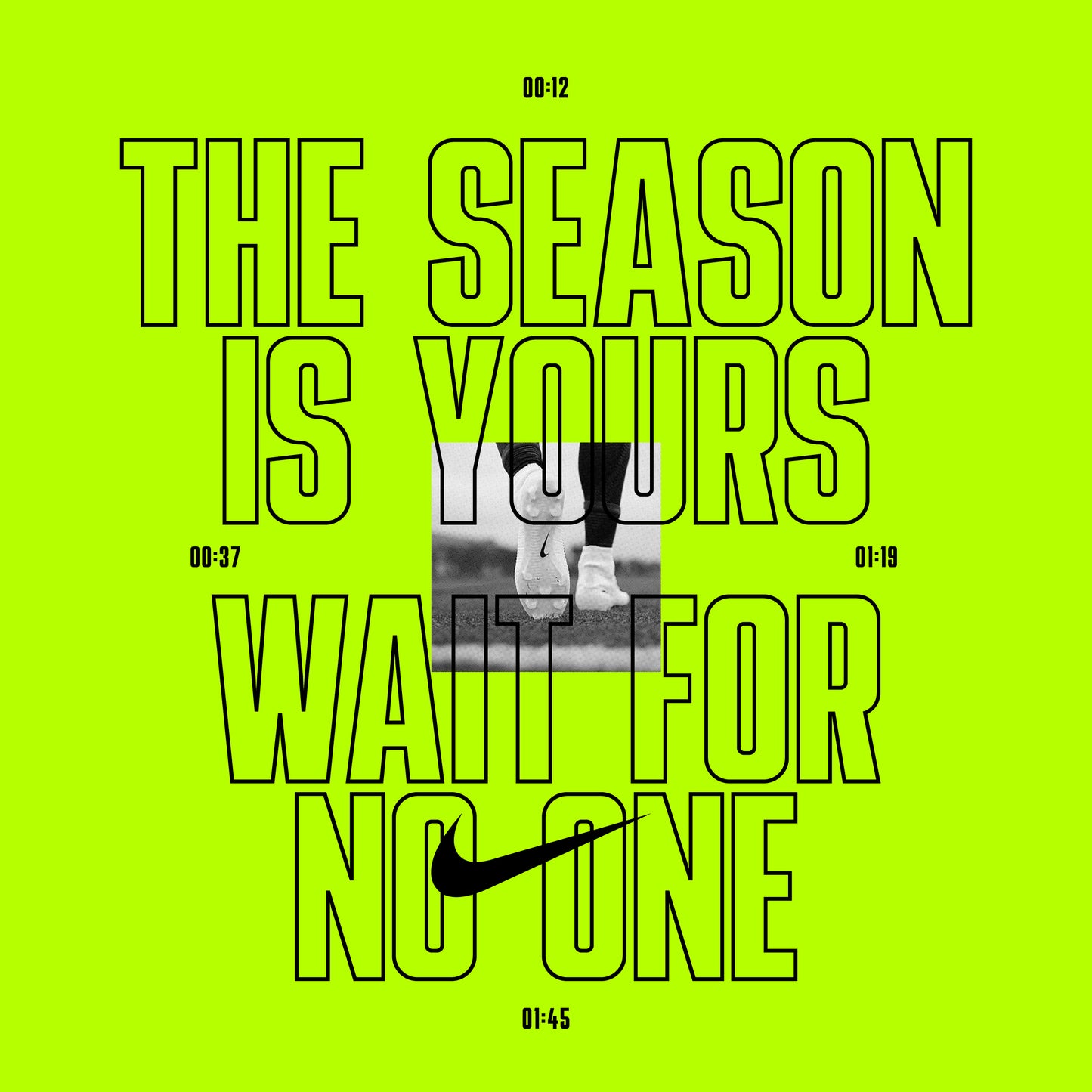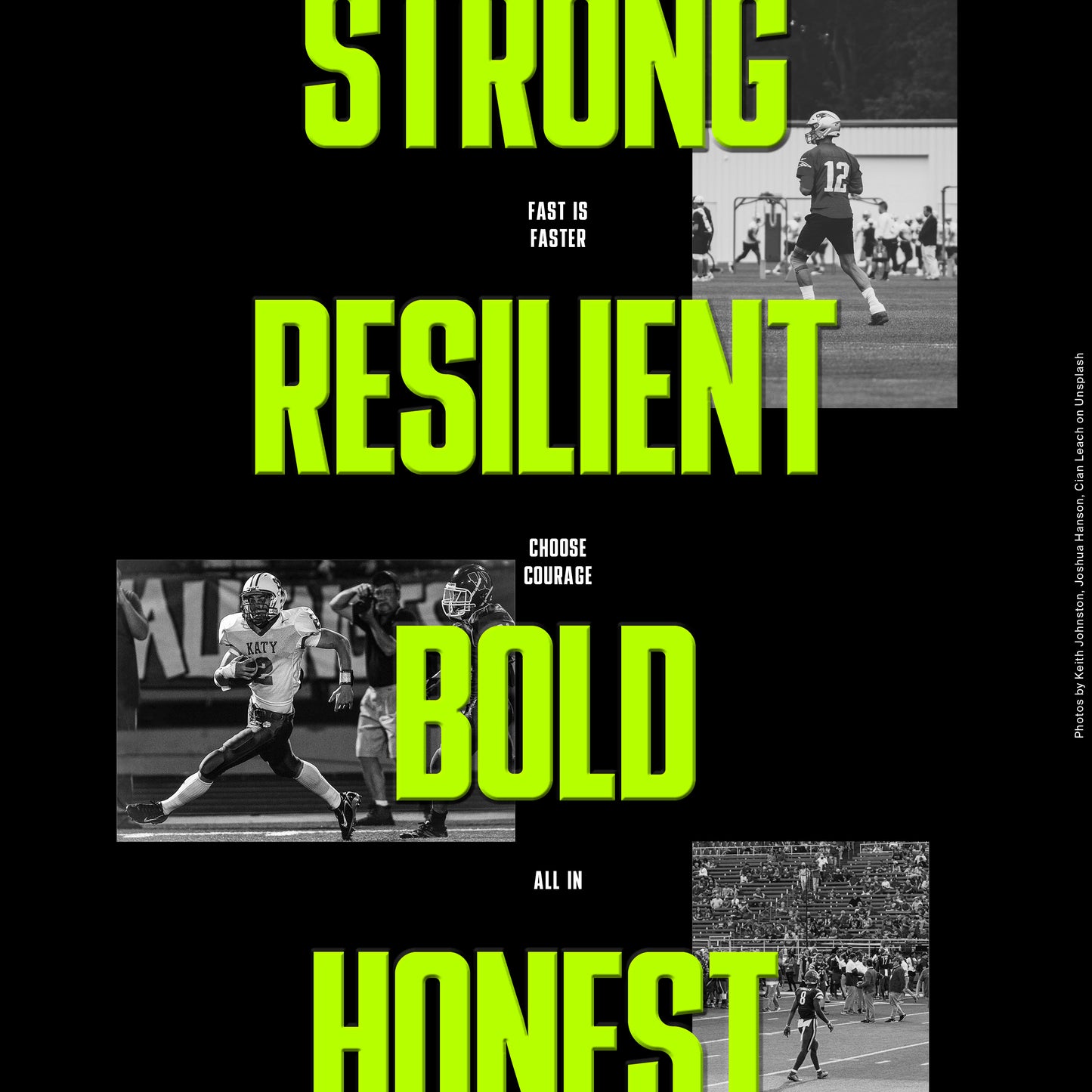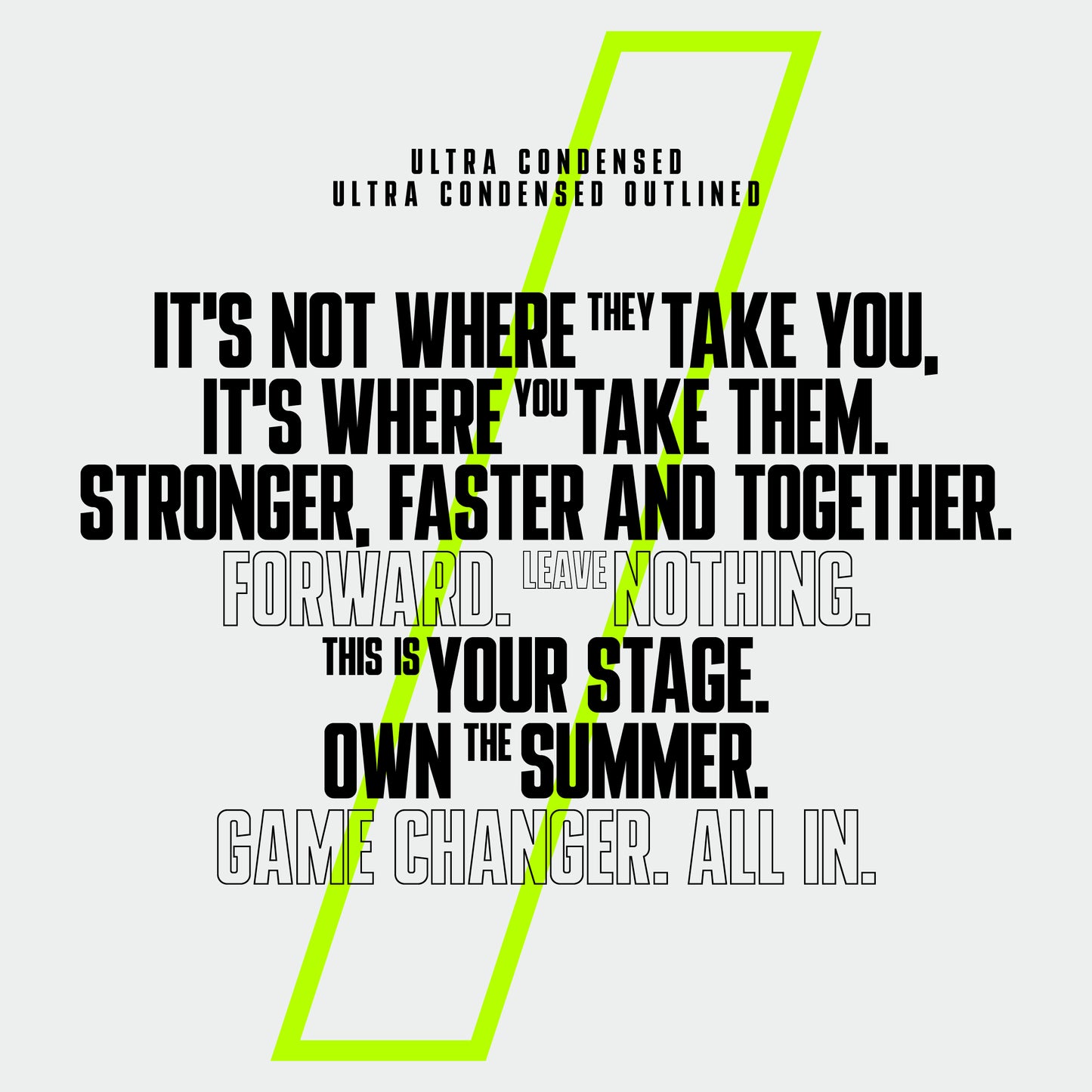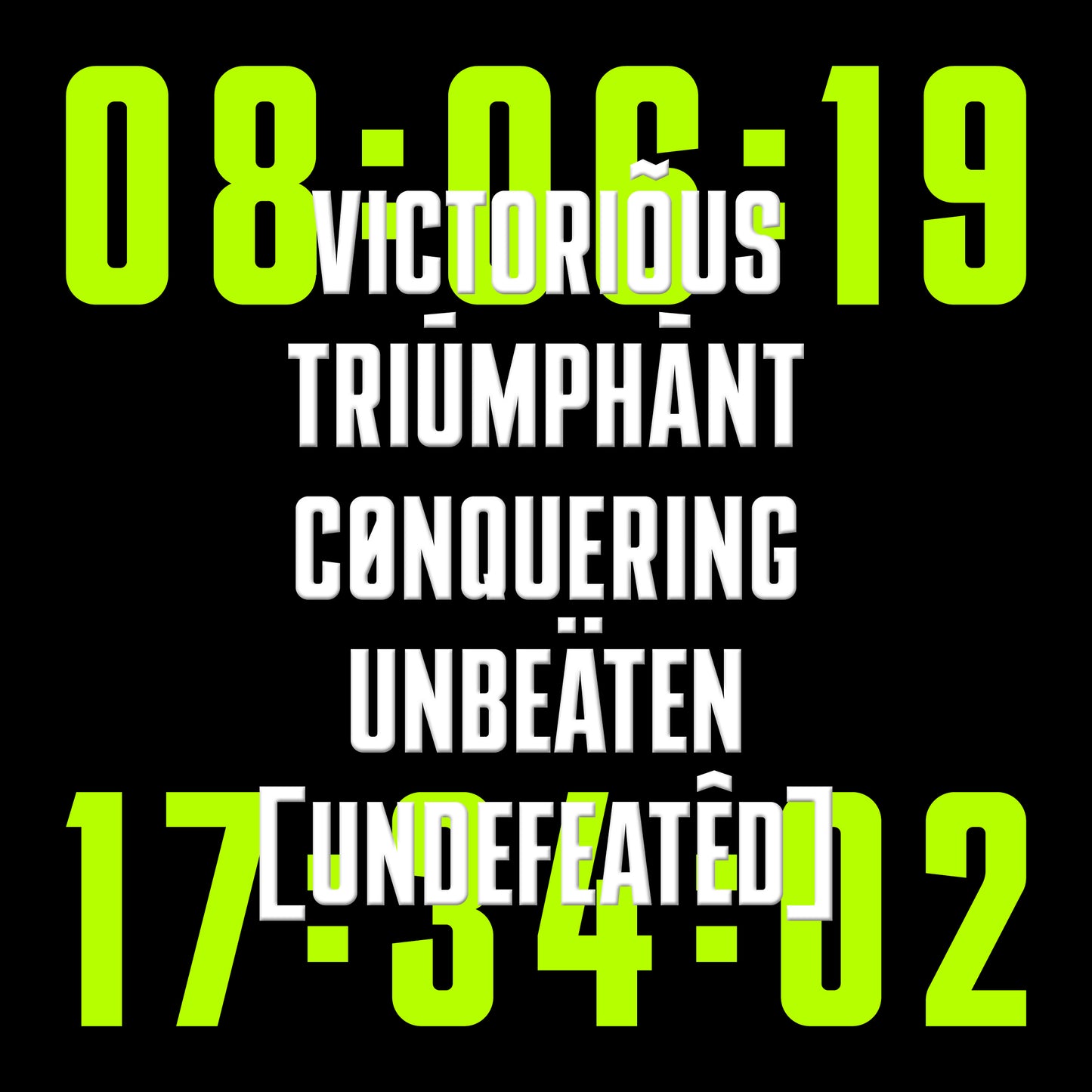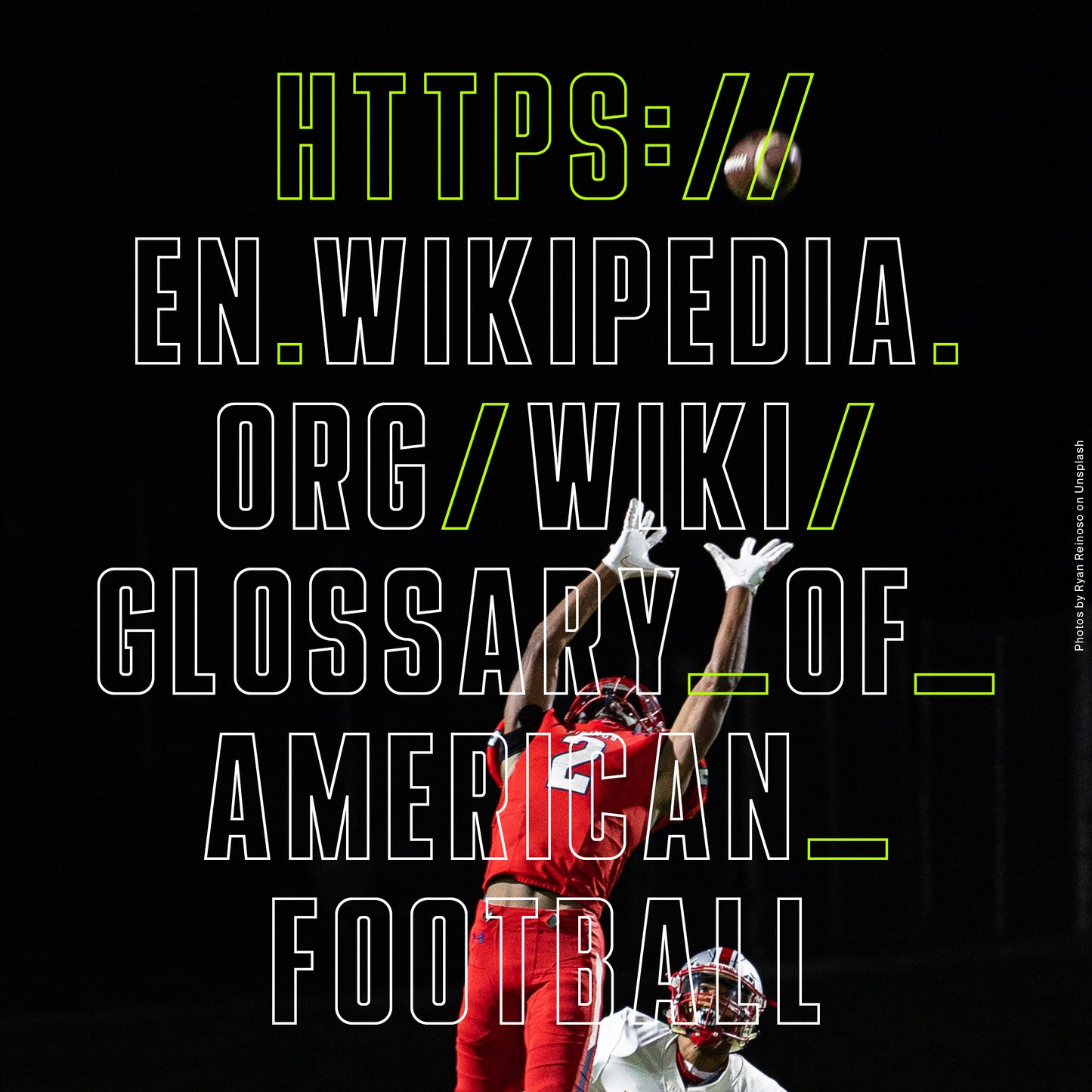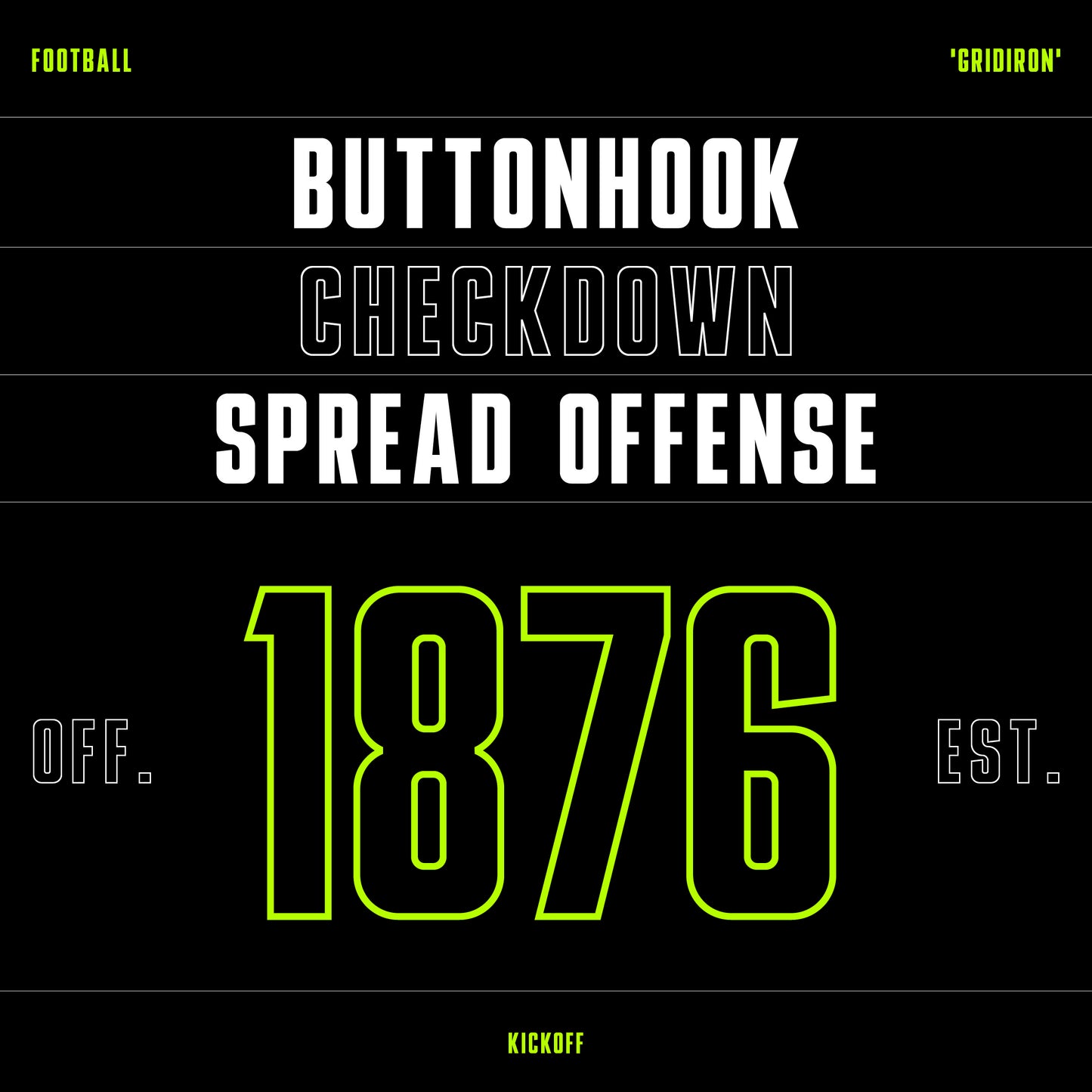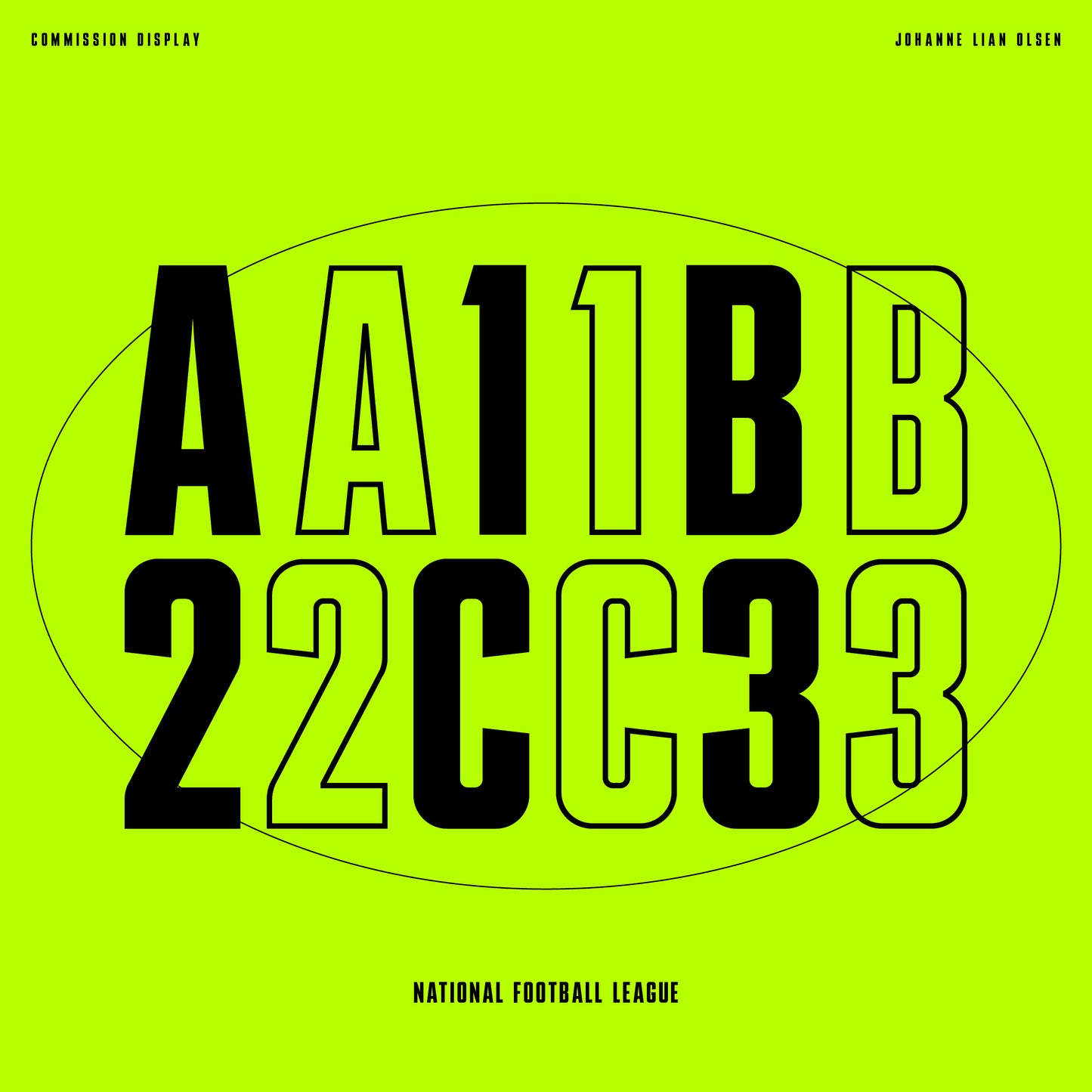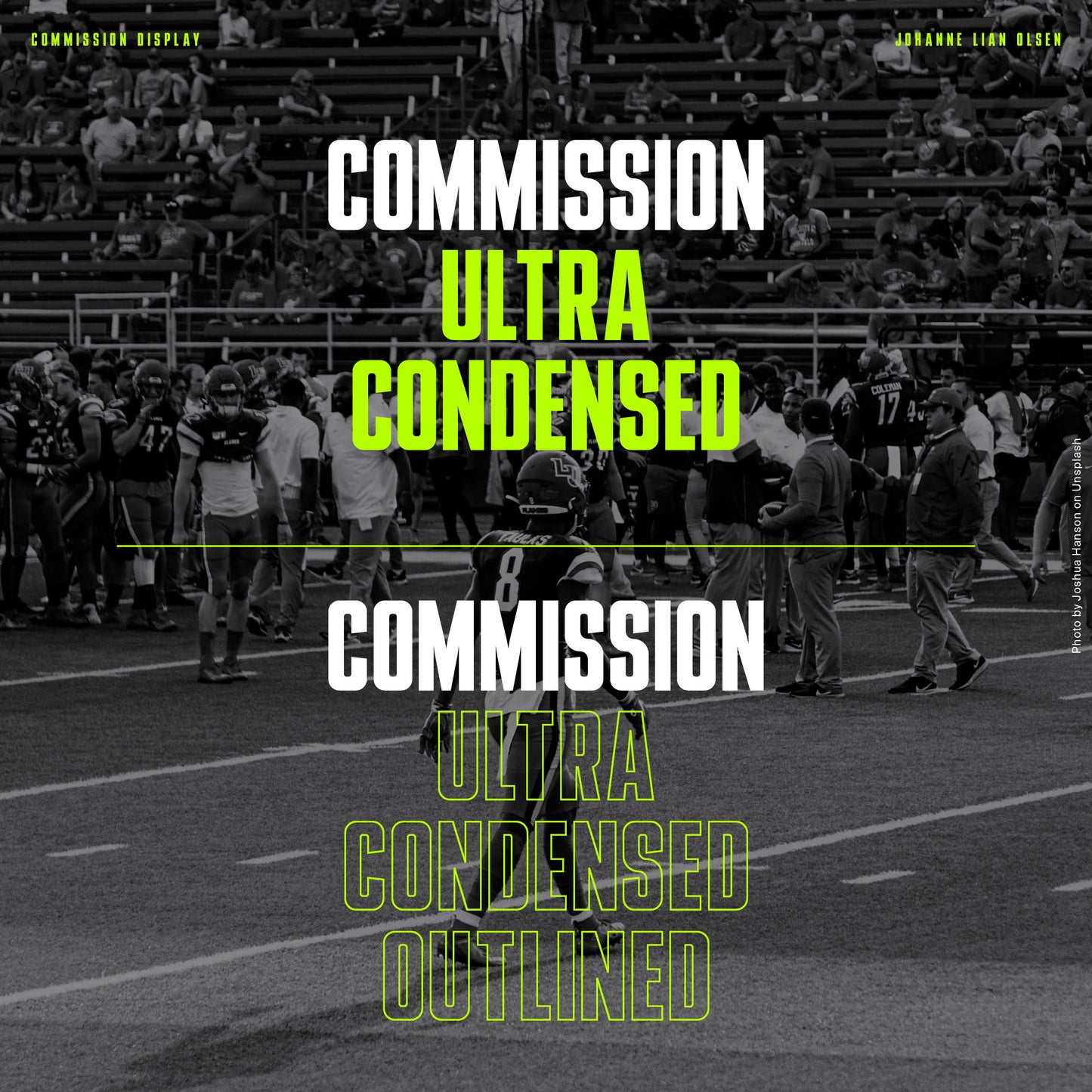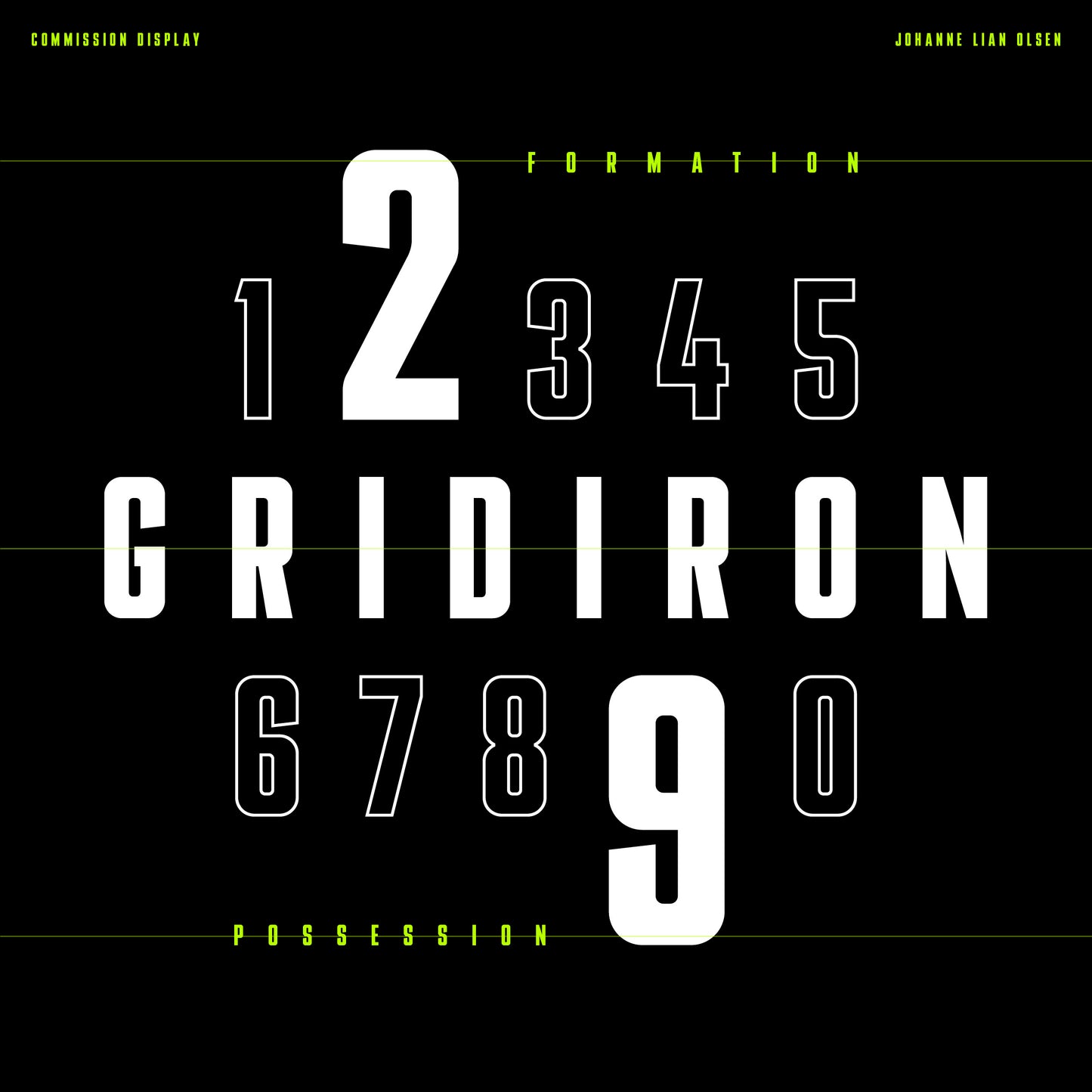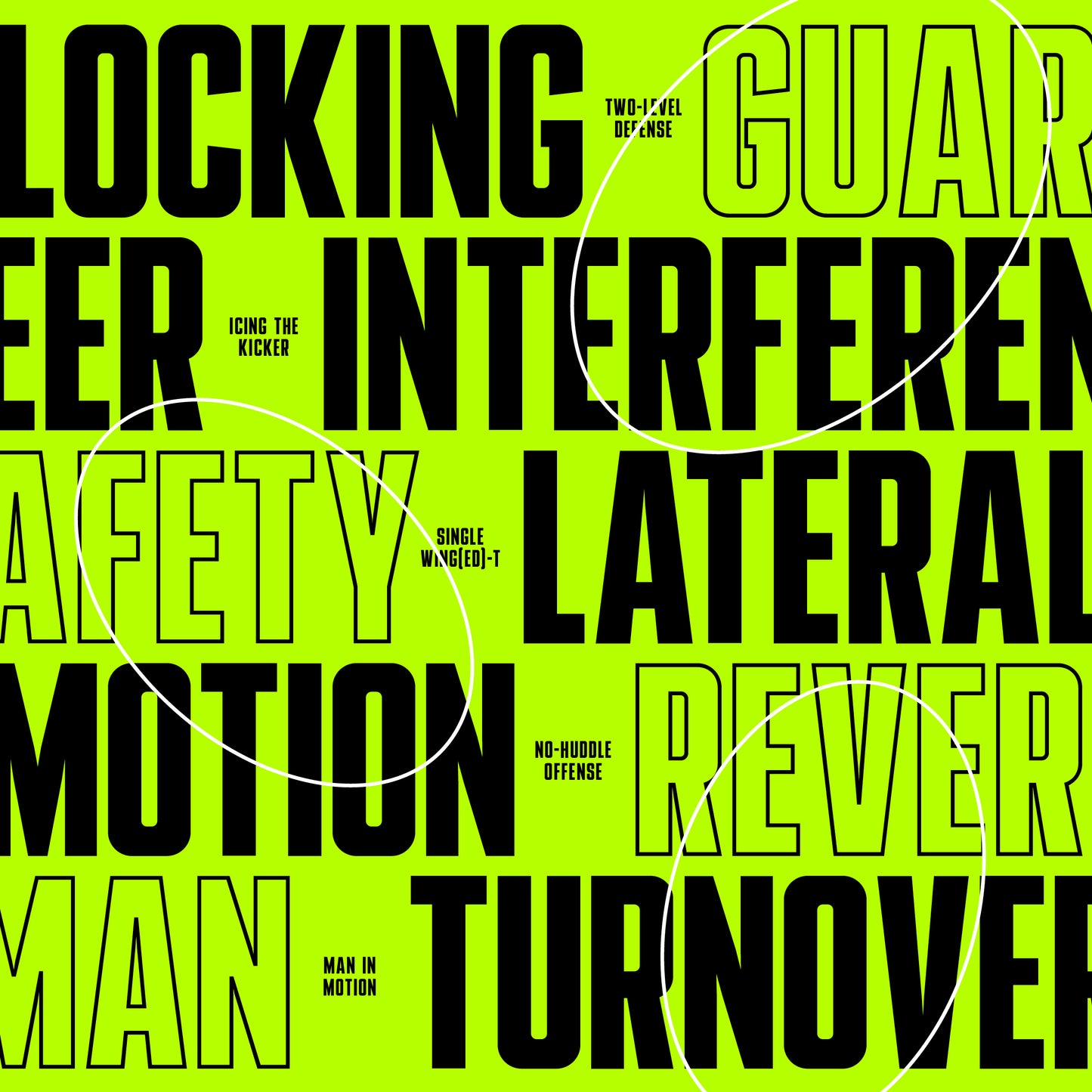
Commission Display
Johanne Lian Olsen
Commission Display is an ultra-condensed headline typeface characterised by curved corners and angled cut terminals. Combining the minimalism of a heavy display sans with a distinct sense of character, Commission Display excels at delivering bold messages with a strong, clean aesthetic.
This versatile typeface is ideal for a variety of applications including branding, campaigns, posters, and more. Its compact yet impactful design ensures it stands out while maintaining readability and visual appeal across different mediums.
- Western European diacritics
- Uppercase only
- Numbers
- Punctuation & Symbols